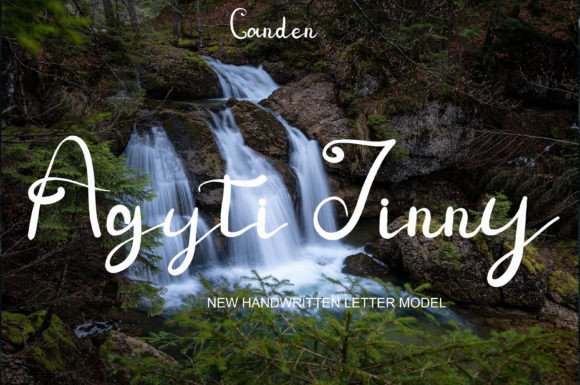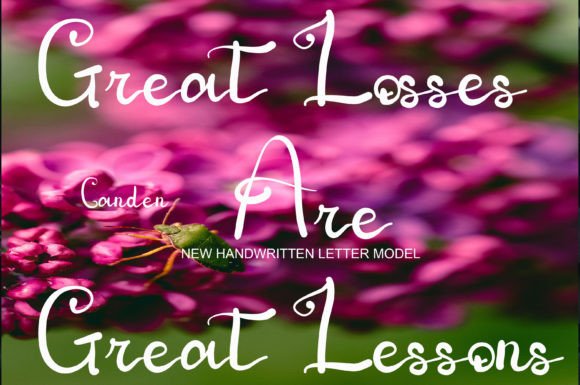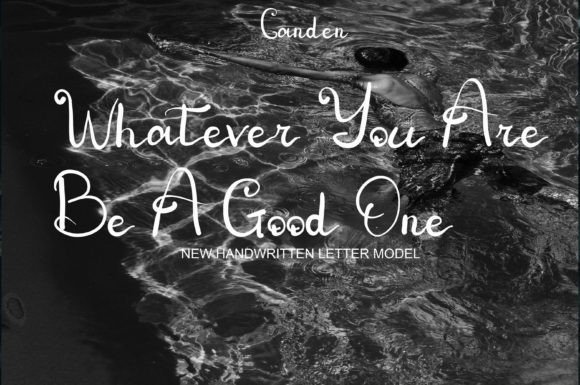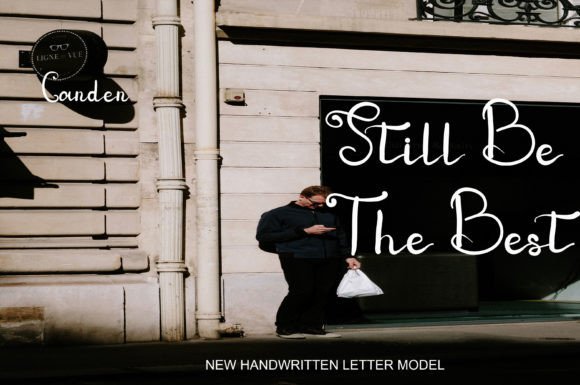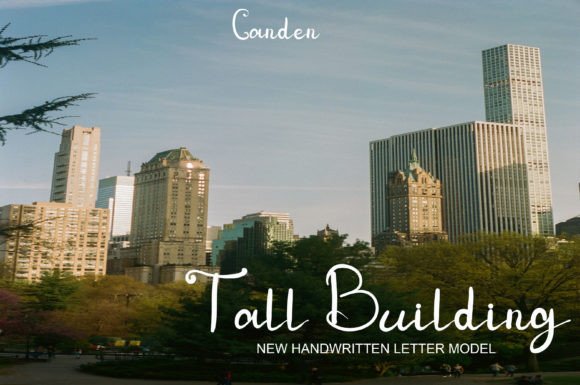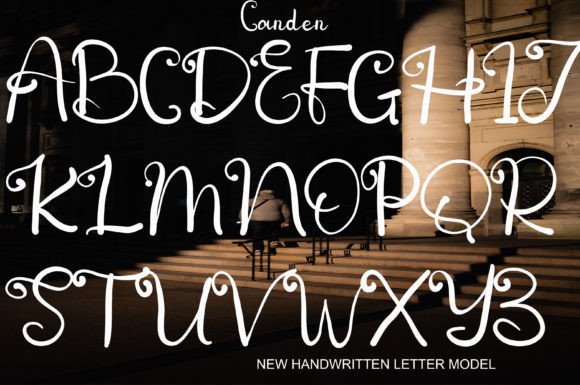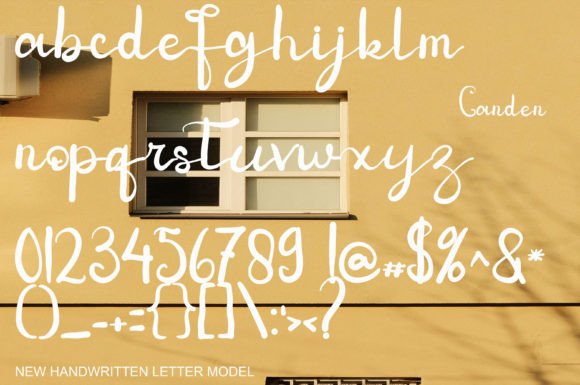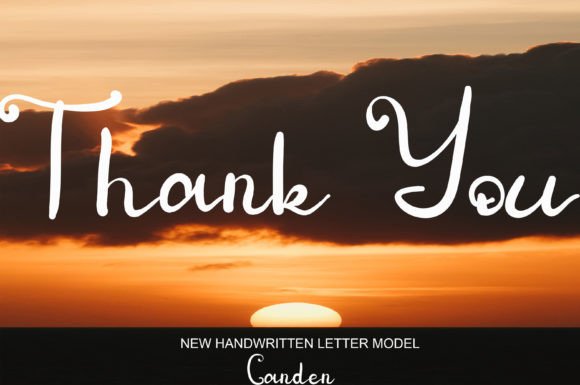
Agyti Jinny Font
Agyti Jinny is a stunning and delicately crafted handwritten font that exudes a beautiful and light quality, accompanied by a unique feel and a striking impact. This font is more than a typographic choice; it serves as a creative catalyst, infusing a romantic accent into any design project you envision, elevating its aesthetic appeal.
The beauty of Agyti Jinny lies in its light and graceful strokes, embodying an air of elegance and sophistication that adds a distinct charm to the text. Each character is meticulously designed, contributing to the overall uniqueness and memorability of this font.
Being a handwritten font, Agyti Jinny brings a personal touch to your projects. Its unique feel sets it apart, making it an ideal choice for designs that seek to evoke a romantic and intimate ambiance. Whether employed in wedding invitations, love notes, or any project that demands a touch of romance, Agyti Jinny seamlessly integrates to enhance the emotional resonance.
The stunning impact of Agyti Jinny is evident in its ability to capture attention and create a lasting impression. Its uniqueness ensures that your designs stand out, making it a valuable asset for any creative endeavor where you aim to leave an indelible mark.
In summary, Agyti Jinny transcends being just a font; it’s a beautiful and light design tool that not only adds a romantic accent but also elevates the overall visual experience of your projects. With its unique feel and striking impact, Agyti Jinny becomes a crucial element in creating designs that resonate emotionally and aesthetically. Let Agyti Jinny be the source of timeless elegance and romantic allure in your creative ventures.